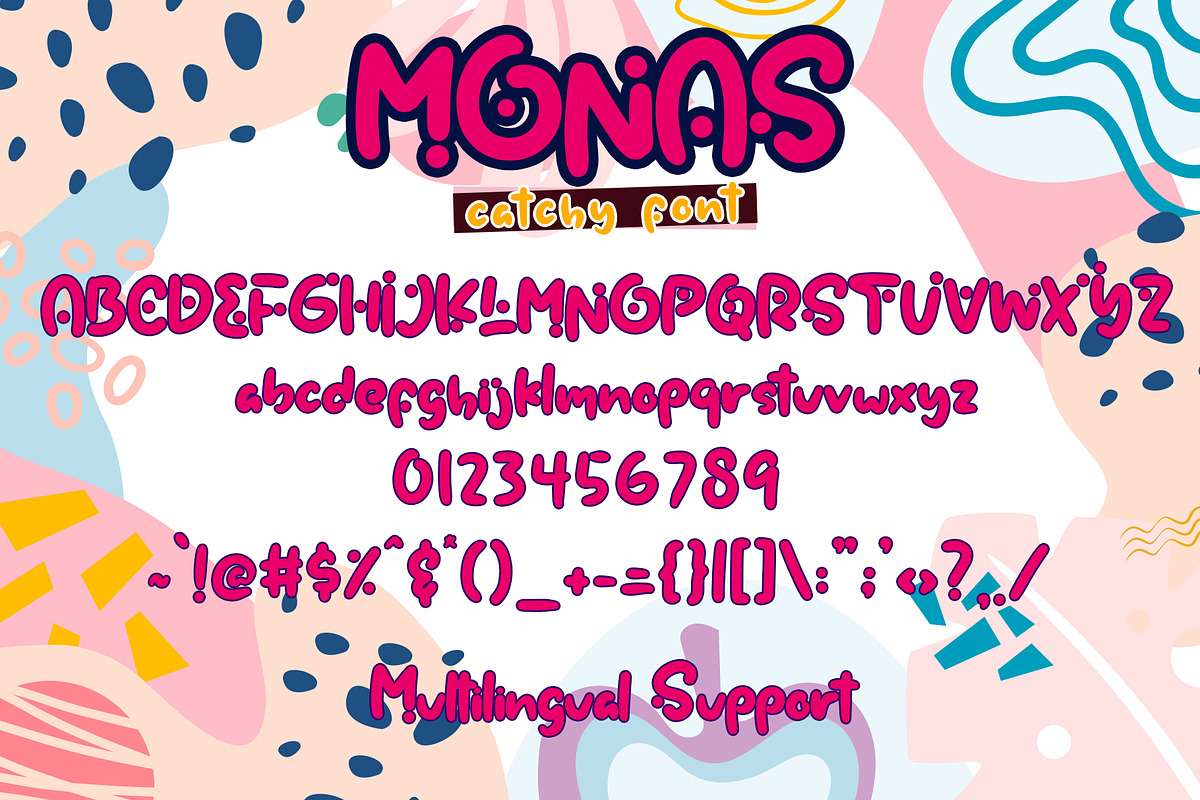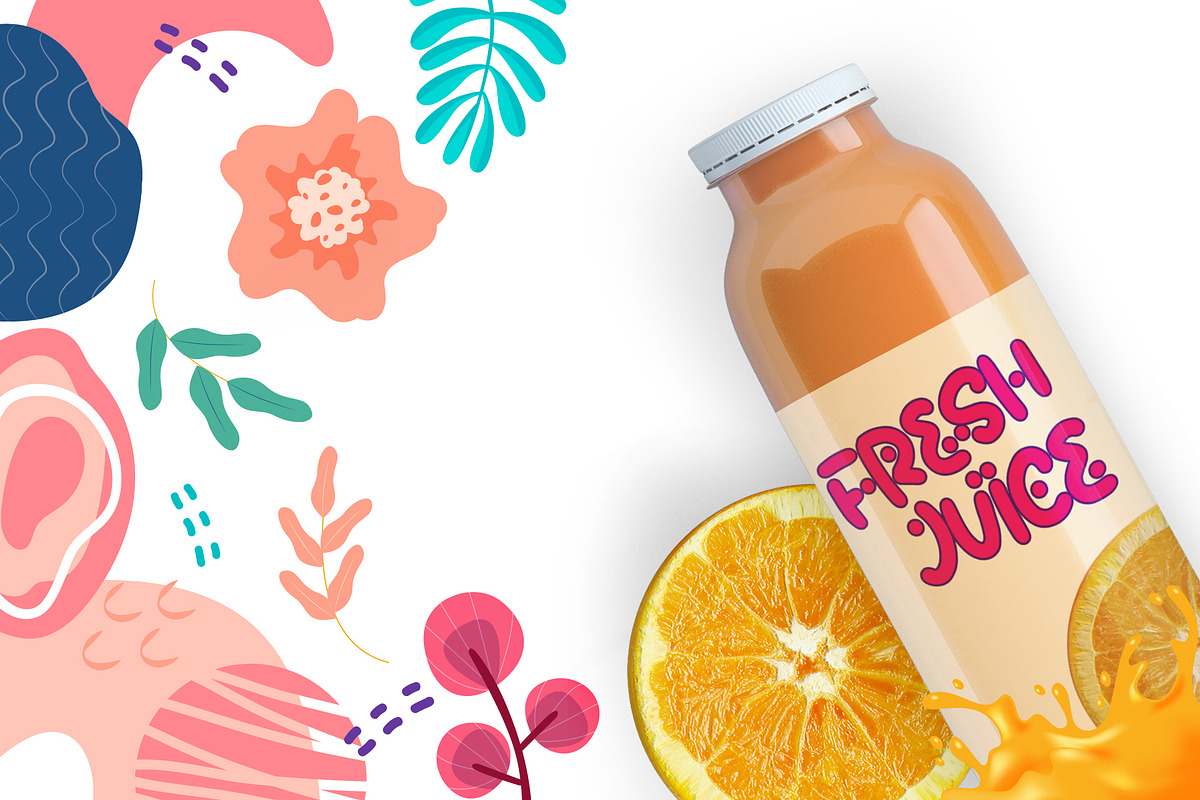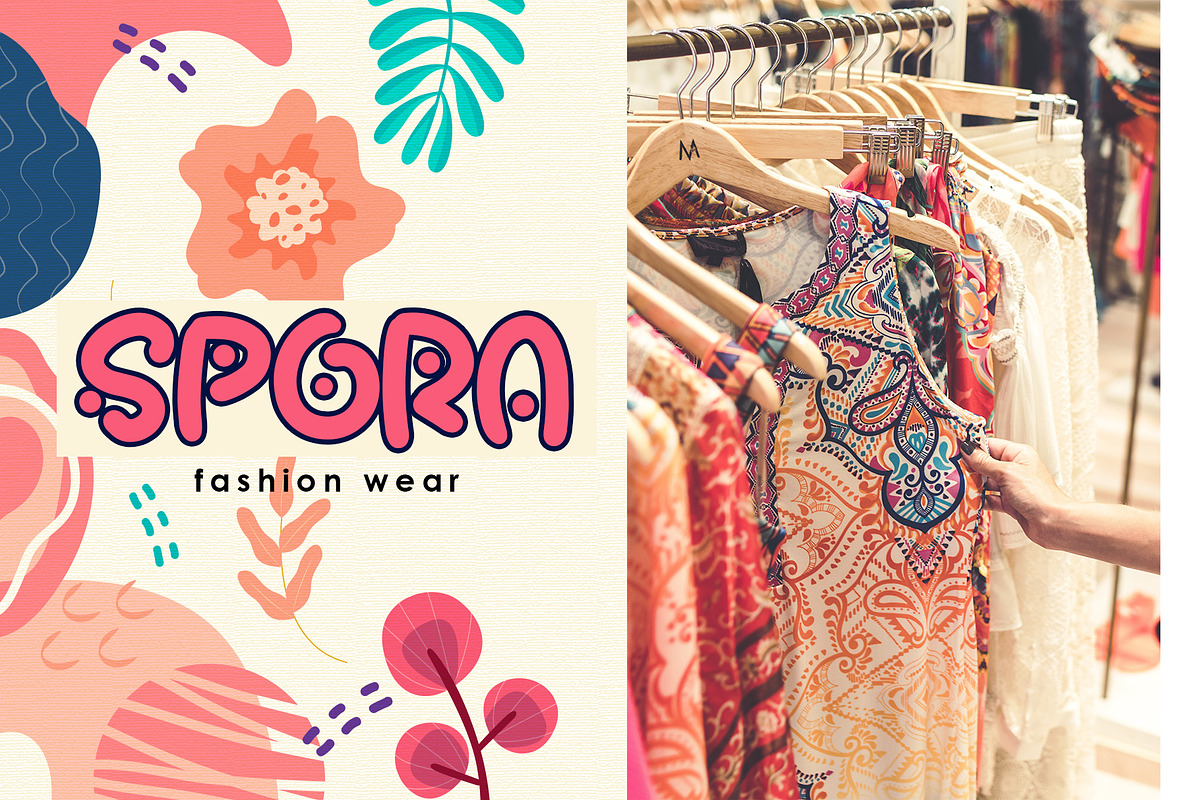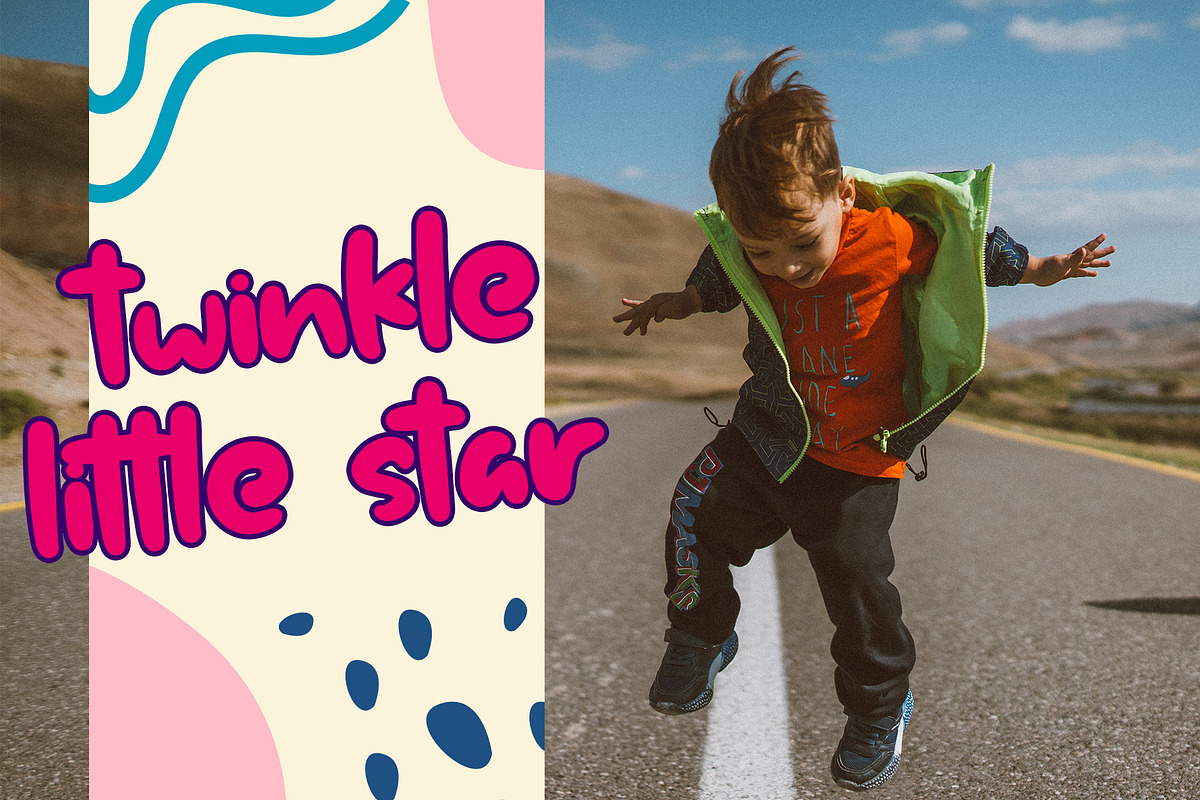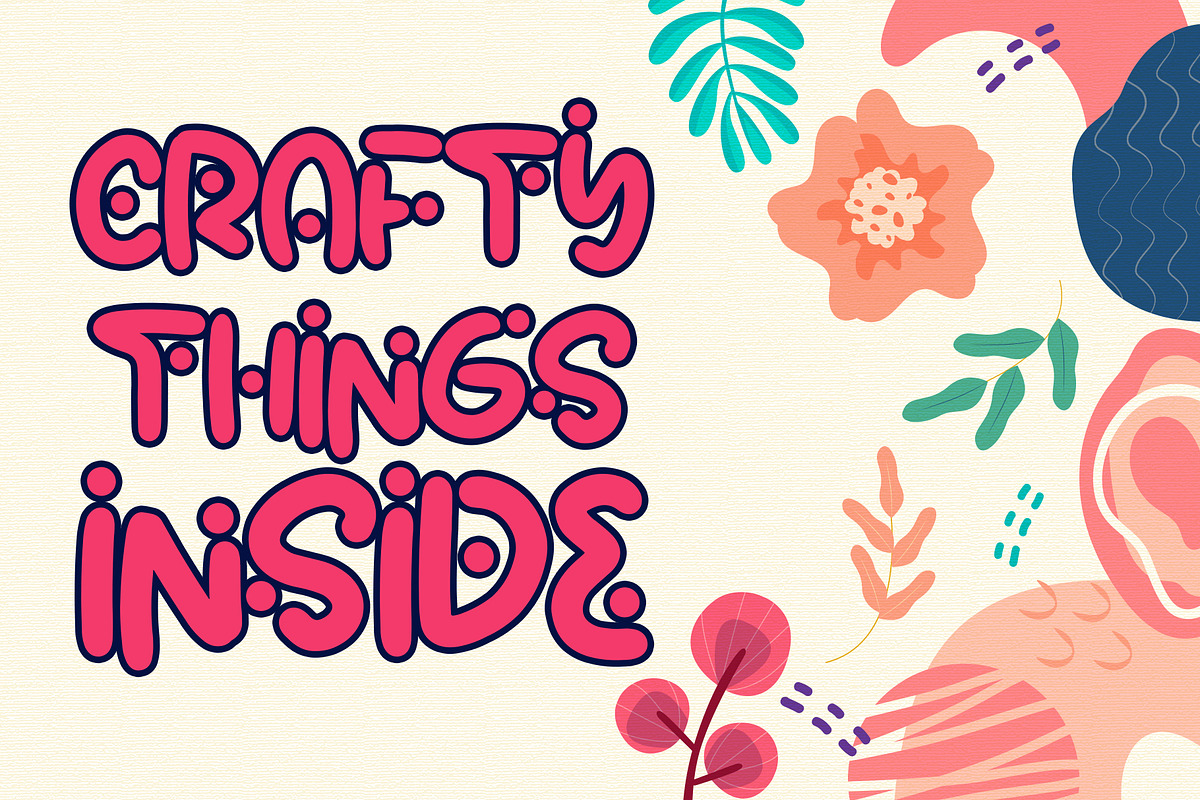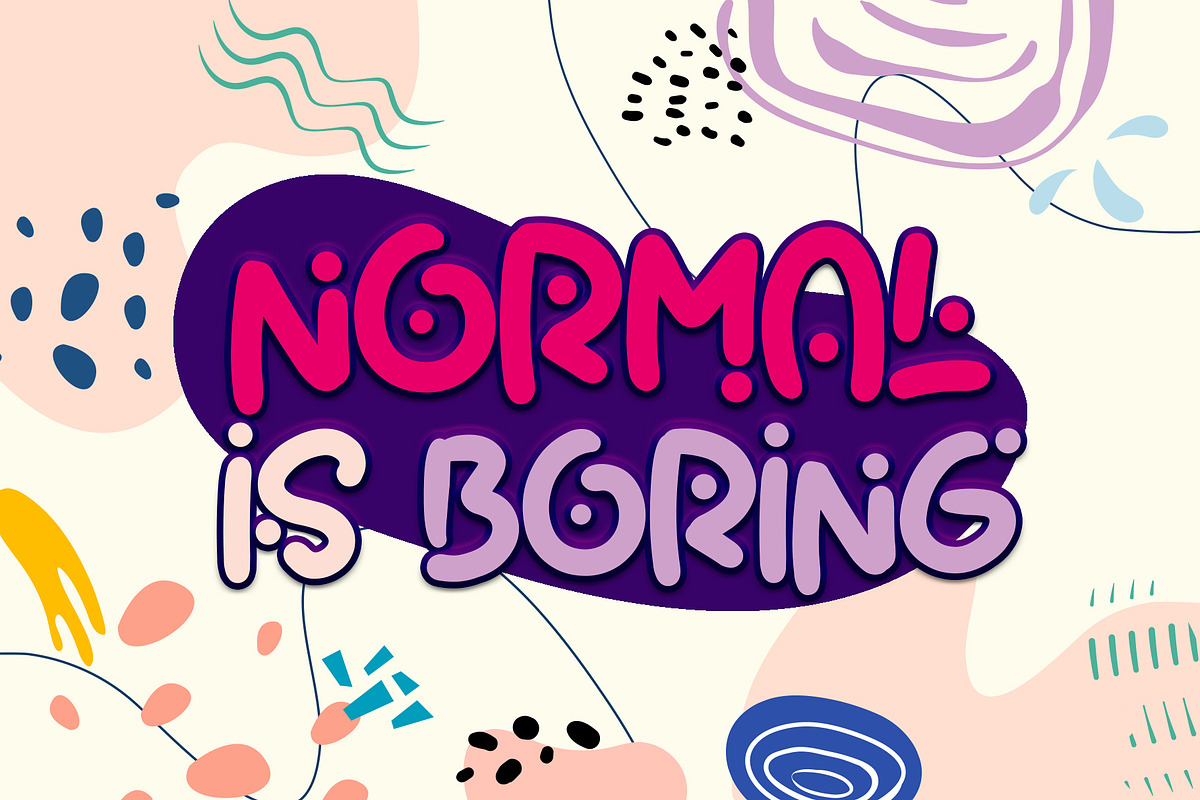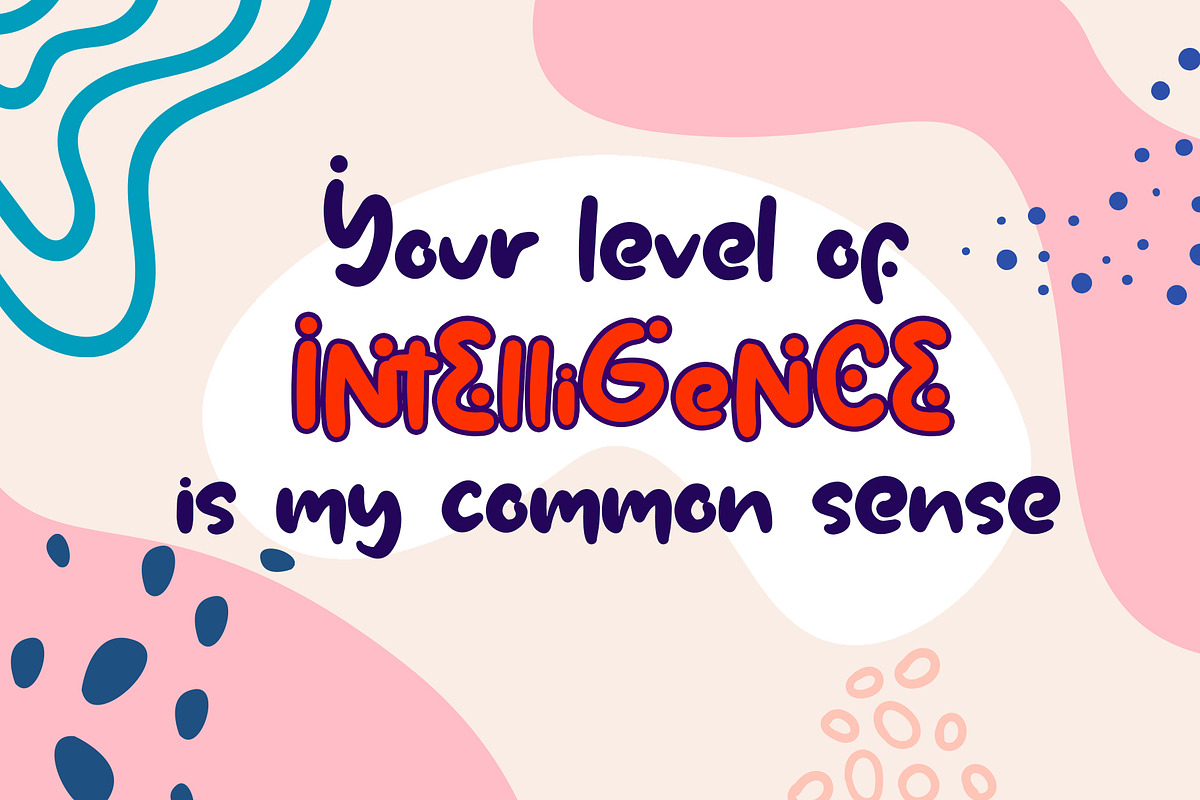
Monas - Catchy Font
Proudly present, our newest product : MONAS Font This is a catchy, bold, and stylish handwritten font, with stunning and unique design! Great for crafting, brand, logo, quotes, typography, sticker and much more!